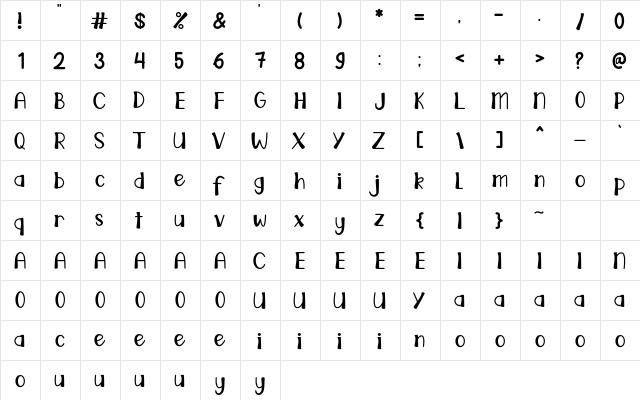
Antique Witch Regular
Design Context for Antique Witch Typeface
Antique Witch wears its vintage influences proudly, with letterforms that recall mid-century signage, classic packaging, and nostalgia-driven design.
Font Pairing: Combine Antique Witch with a simple slab or neutral sans — period-accurate companions reinforce the vintage feel without competing for attention.
Pro Tip: Use Antique Witch for headlines and pull quotes rather than body copy — its personality is best appreciated in short, focused bursts.